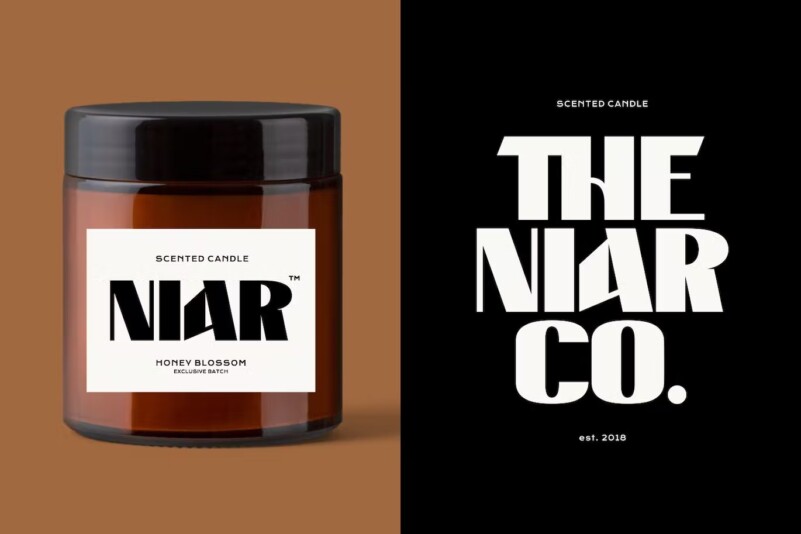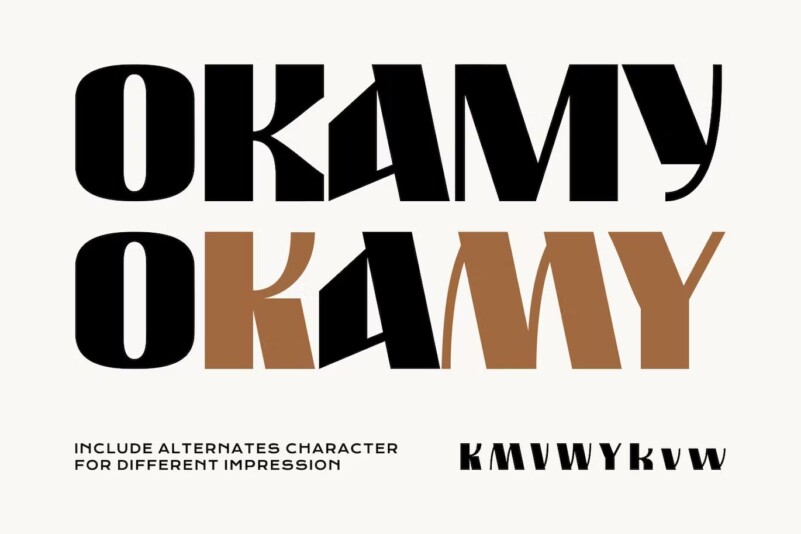
Hero Kawig – Thick Modern Font
Hero Kawig is a thick modern font with visual elegance, smooth curves and beautiful clear ligatures, giving your work an authentic and attractive look.
A versatile font that works equally well in large and small sizes. This font is suitable for a wide variety of projects such as logos, invitations, branding, magazines, photography, cards, product packaging, product mockups, mugs, quotes, posters , labels, signatures, editorials, websites, art deco, social networks, etc.